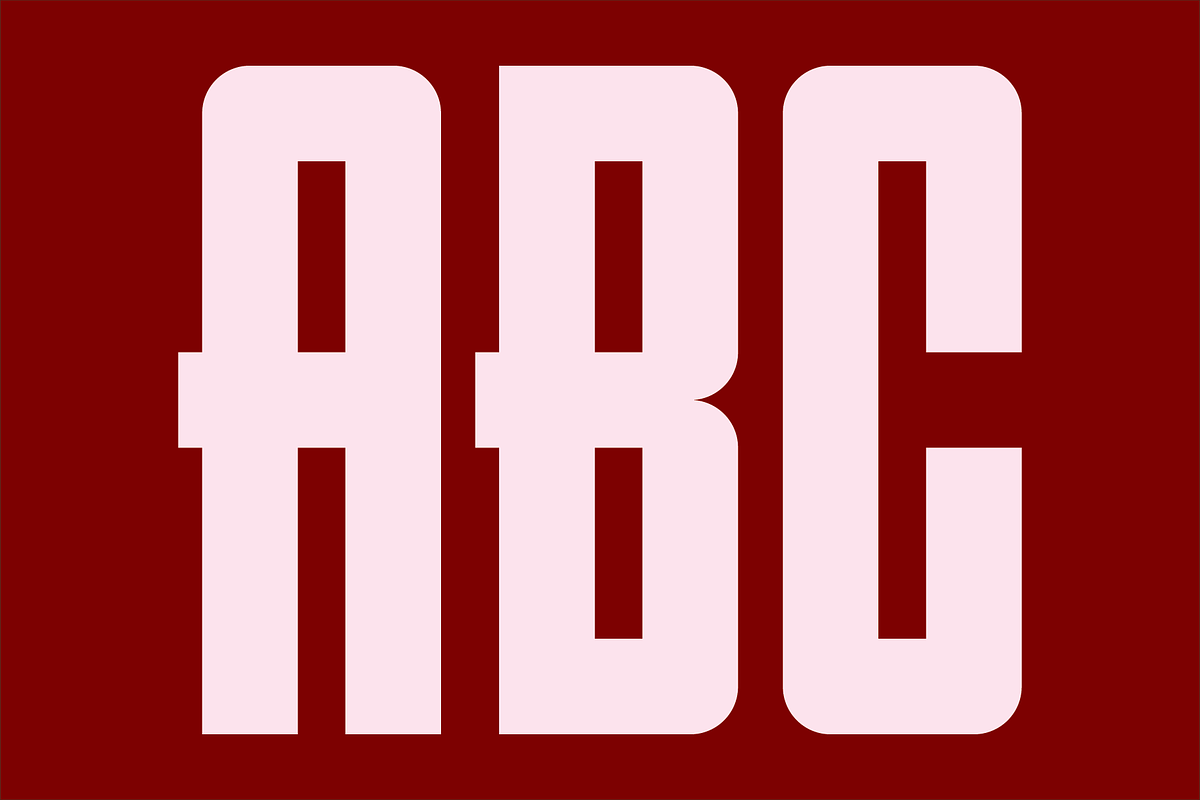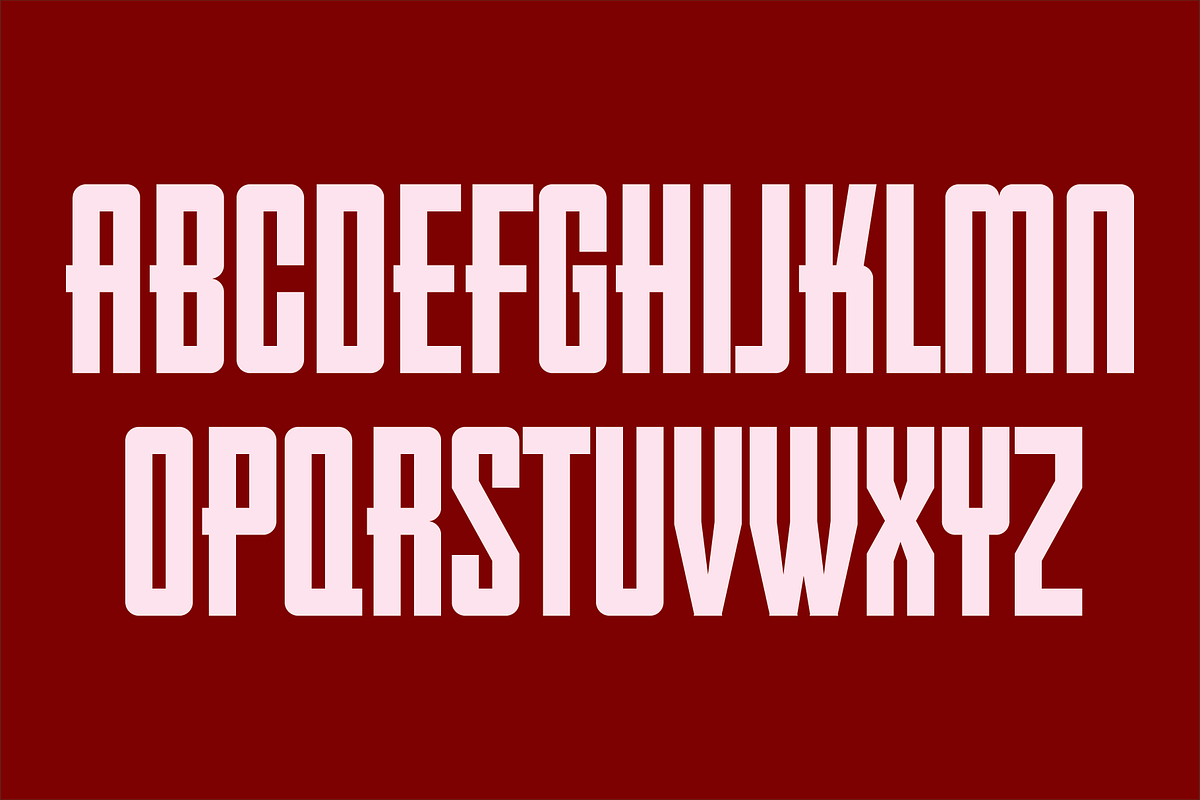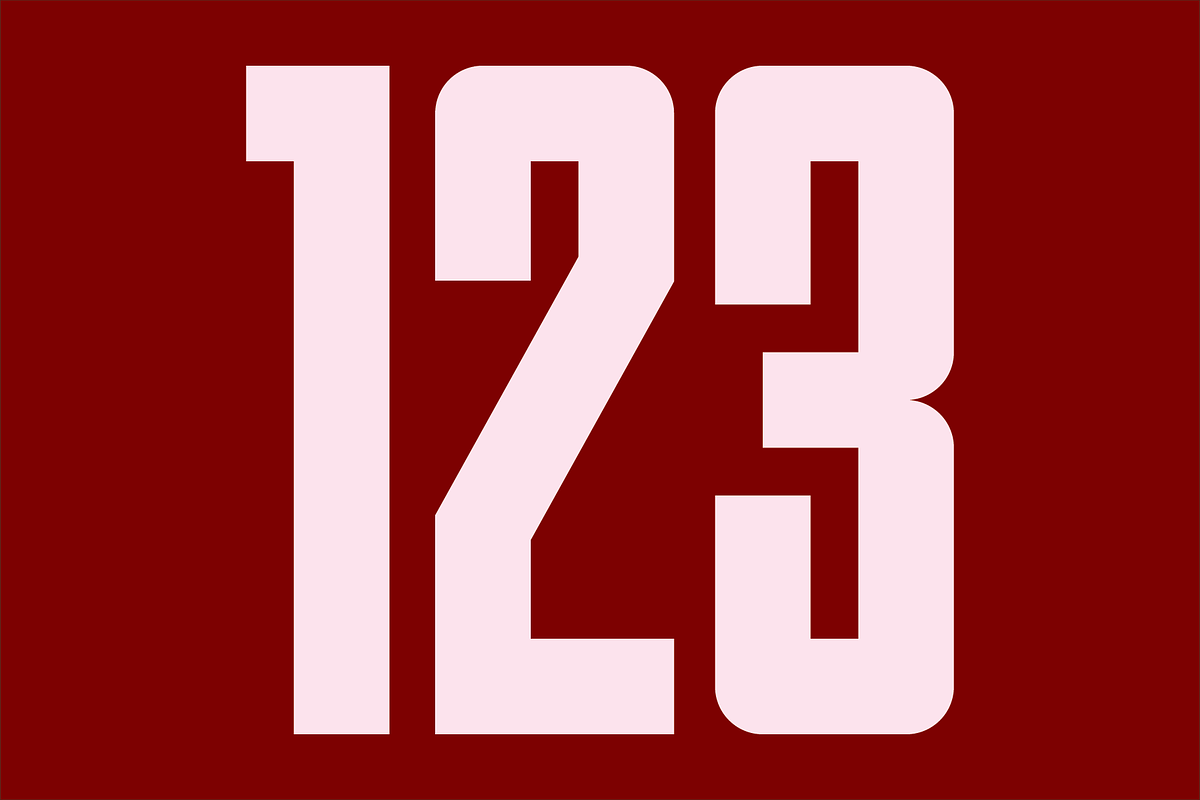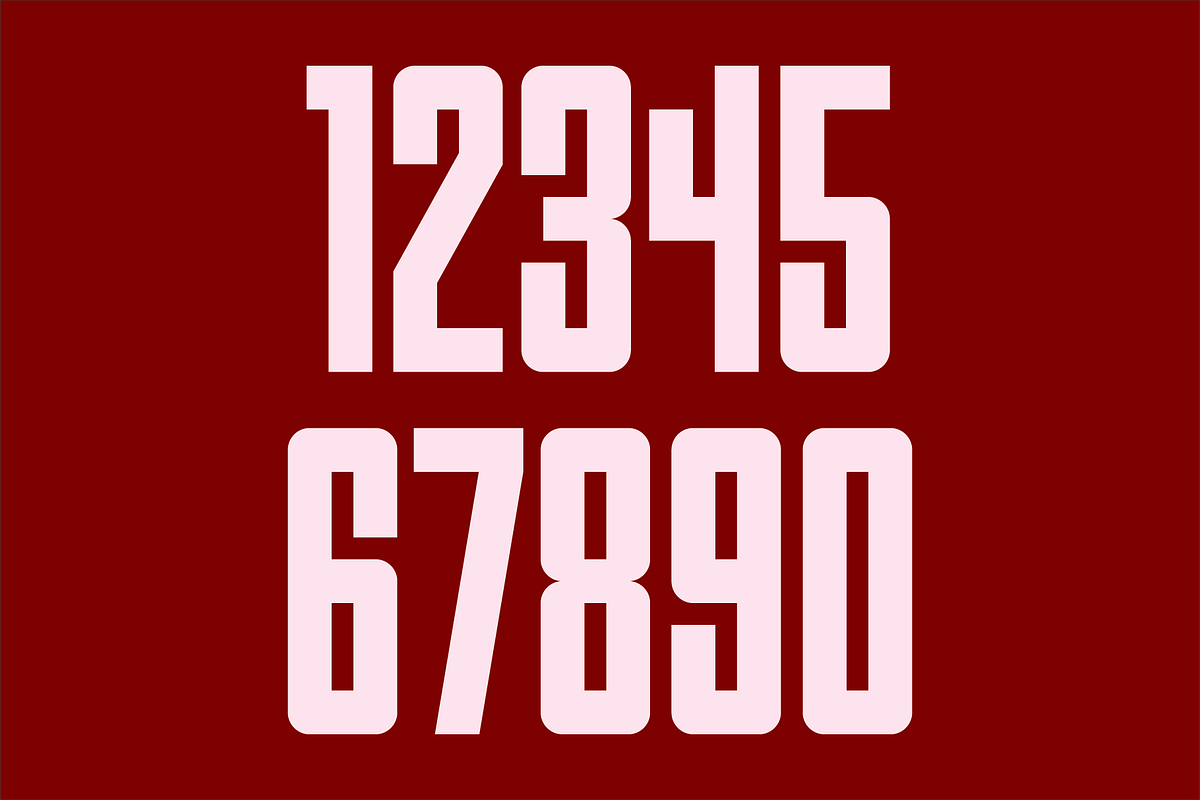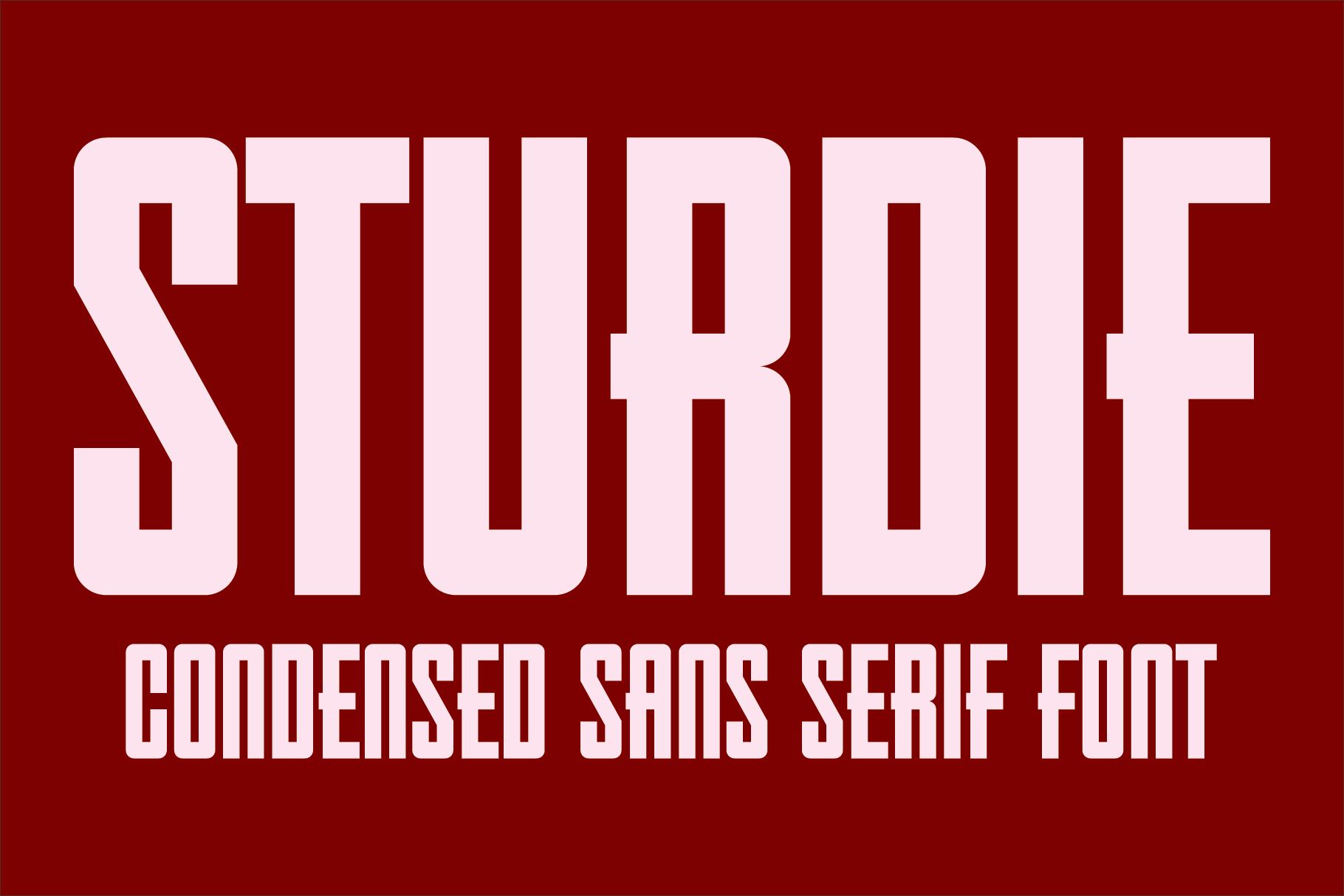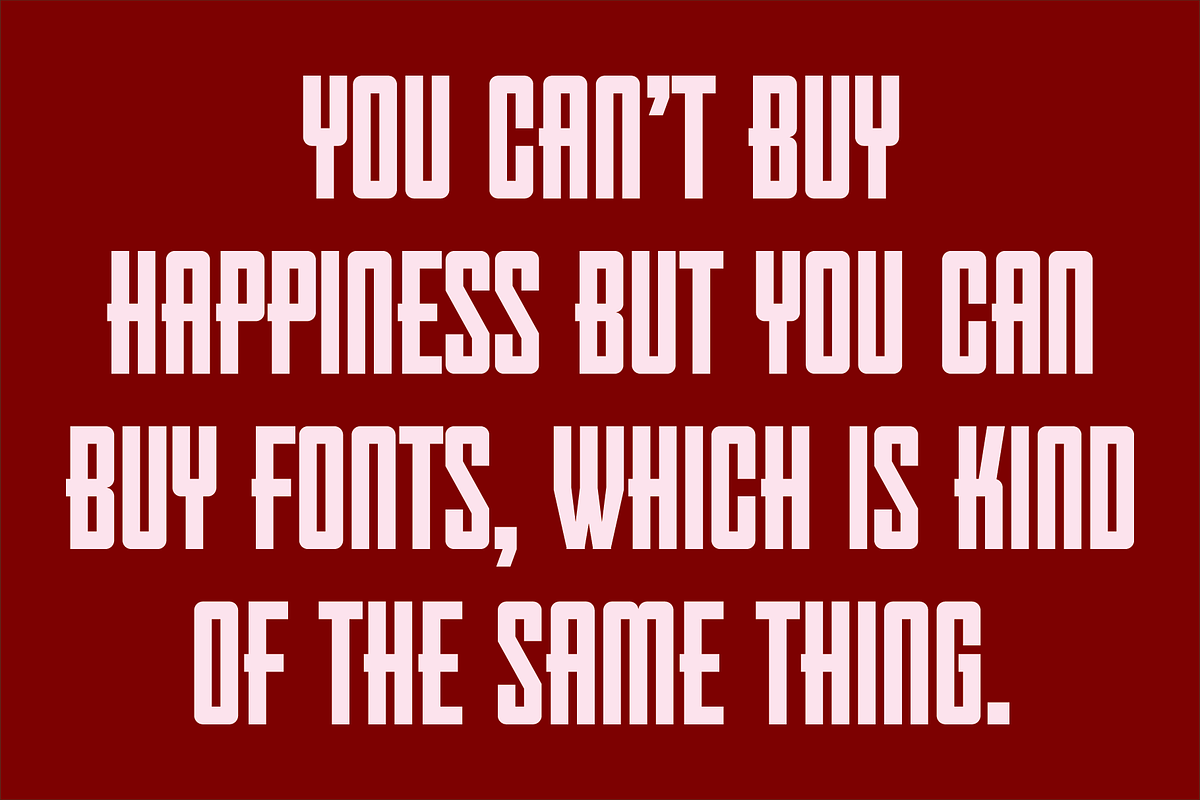
Sturdie - Condensed Sans Serif Font
Sturdie is an all caps condensed sans serif font. It is ideal for headlines, titles, branding, and small blocks of text.